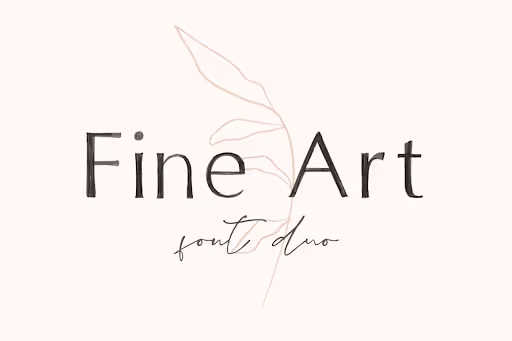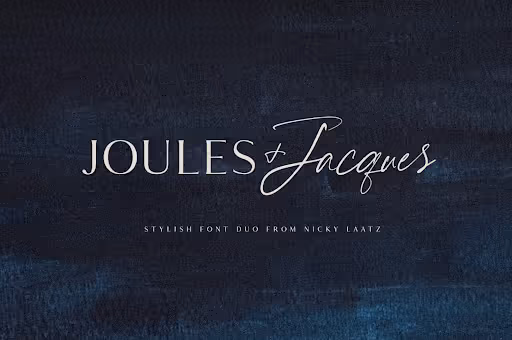
15 Coffee Shop Fonts to Level up Your Cafe
What font suits coffee shops? We have you covered with 15 amazing cafe fonts: from cute handwritten typefaces to killer font duos suitable for every occasion!
Handwritten fonts for logo design
Handwritten fonts make great coffee fonts, thanks to their elegant design. The curved ligatures found on some of them evoke images of steam rising from a fresh cup of coffee.
1. Seattle
Seattle is a café-inspired sans serif font. Its simplicity and minimalism are achieved by the tall narrow letters, use of all caps, and tight kerning. Use this font in your logo to let your customers know they should expect a homey coffee shop with out of this world coffee.
2. I Need Coffee
I Need Coffee is a hand-lettered sans serif font. If you want to convey a casual, relaxed, and minimalistic vibe, then this is the coffee shop font style for you. Pair it with muted colors to create a stellar branding color palette.
3. Black Coffee
Black Coffee is a vintage hand-drawn sans serif font inspired by coffee shops’ chalkboard signs. This is the perfect coffee shop font style if your cafe has industrial interior design. You are telling people that you are a no-fuss coffee shop brewing top-notch black coffee.
4. Pinot
Pinot is a handwritten cursive font that looks both modern and timeless. This is a perfect coffee house font for cafes serving indulgent European treats and coffee.
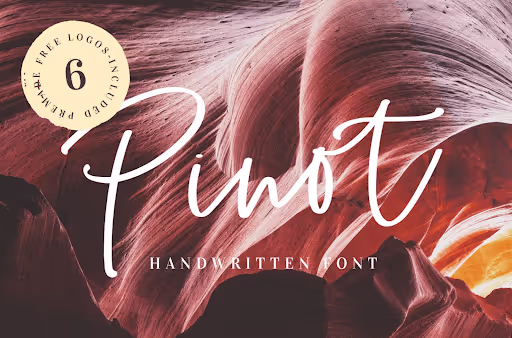
Sleek sans serif cafe fonts
Are you associating sans serif fonts with the popular Arial, Helvetica, Calibri, and Open Sans, and find them too basic? Check out the collection of sans serif coffee shop fonts below that will change your mind!
5. Quesha
Quesha is one of the best coffee shop fonts, thanks to its unique and memorable look. This can be a great coffee typeface to use on a hip wordmark.
6. Rosie Sans
Rosie is a clean and simple, yet bold and beautiful sans serif font. This look is achieved by all caps, wide letters, and narrow kerning. If you want to make it more decorative and organic, you can add stylistic alternates and ligatures. This coffee shop font style is perfect for trendy cafes that also double as bookshops, flower shops, or gift shops.
7. Carose Sans
Carose Sans achieves its elegant, luxurious, and minimalistic look thanks to all caps and thin strokes. Take this versatile sans serif font to the next level by adding ligatures and stylistic alternates. Give this font a try for your coffee shop font, and your customers will know they are being pampered with the most delicious coffee.
Serif coffe shop font styles
While sans serif fonts are known for their simplicity and modernity, serif fonts are generally seen as old-fashioned and formal. We got used to Times New Roman, Georgia, and Garamond. And while they are classic go-to fonts, you might think they are unsuitable fonts for a logo. When choosing a font for your coffee shop logo, how about giving the serif fonts below a chance?
8. Chalmers
Chalmers is a serif font that you will fall in love with. It is a charming, decorative font with a hint of Art Nouveau. Is your coffee shop European-inspired? Will your customers feel like they are drinking an espresso in Paris? Then this is the best font for a logo that will let customers know you will take them on a journey.
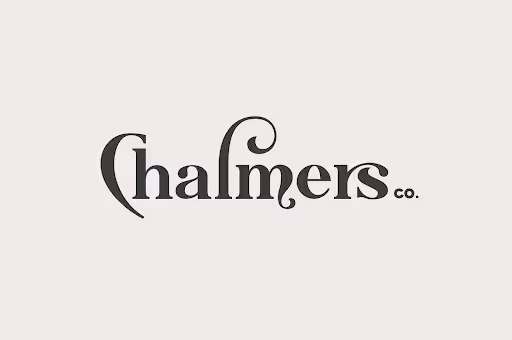
9. Wensley
Wensley is a modern serif font, both bold and simple. One may see it as boring because of its simplicity, but do not be fooled by the power of this flawless design. It is one of those perfect fonts for a logo that stands out without decoration. Give it a try if your coffee shop has a Scandinavian vibe!
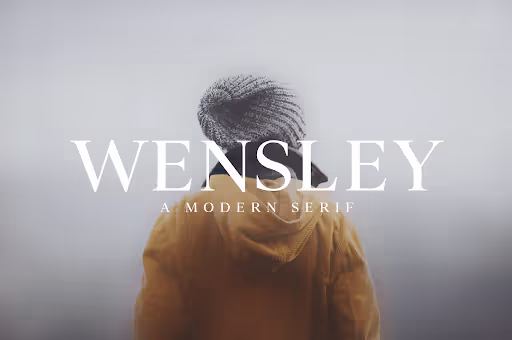
10. Toast Bread Coffee Typeface Serif
Thick strokes and narrow kerning make Toast Bread Coffee Typeface Serif a super bold font. It may look overwhelming, but it can convey feelings of warmth and comfort when used correctly in a logo design. This is for a coffee shop that serves a hearty French toast accompanied by a big cup of cappuccino.
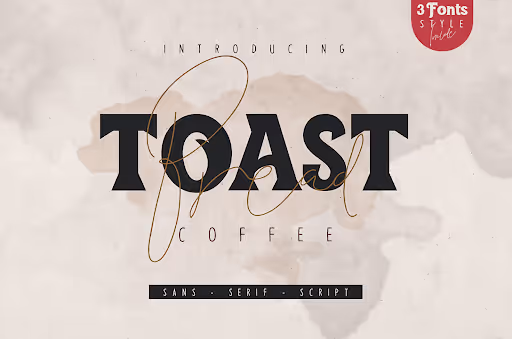
11. Refita
Refita is a wedge serif font that is both bold and feminine, retro and modern. Your coffee shop takes pride in the high quality of its coffee-making process. From acquiring the beans to roasting and grinding them to finally brewing fresh delicious coffee. This font can say all of that to your customers with minimal effort on your part. If you want to take it to the next level, you can also pair it with a script font.
Font Duos
Are you looking into incorporating two fonts for a logo but are struggling to find the perfect matches? It is crucial that the font pairing is successful, and finding the perfect pair can be a tedious process.
Font duos are a combination of two types of fonts that work well together visually. And the most efficient way to create a pleasing and cohesive design for your logo is by using an already made font duo. Check out the duos below, beautifully pairing sans serif or serif fonts with handwritten fonts!